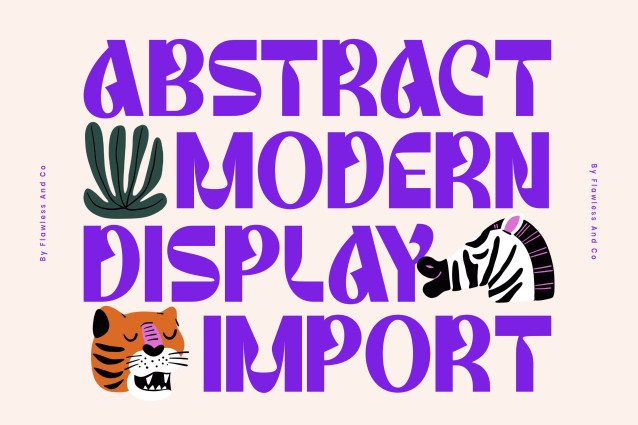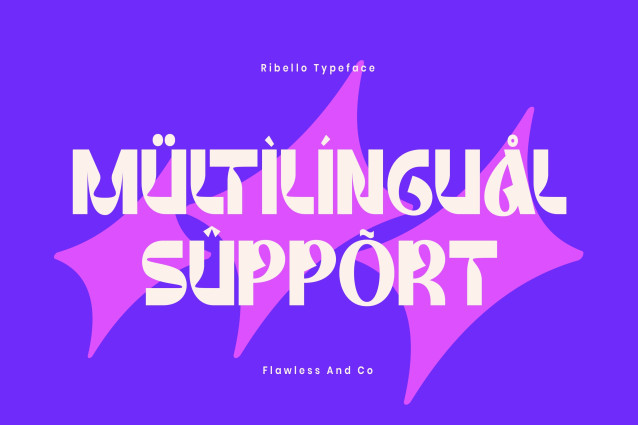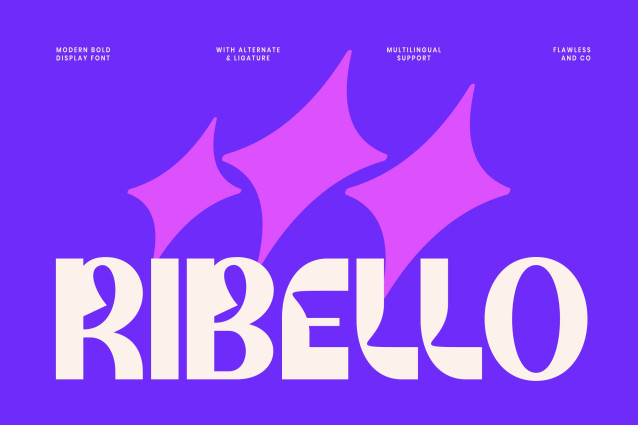
Ribello – Unique Bold Display Font
Ribello is a bold and playful display font designed to bring an unexpected sense of personality, movement, and creativity into your typography. Featuring chunky letterforms, unusual cuts, playful curves, and distinctive shapes, Ribello has a unique visual character that instantly grabs attention. Its expressive construction gives every word a fun and unconventional appearance, making ordinary typography feel much more exciting.